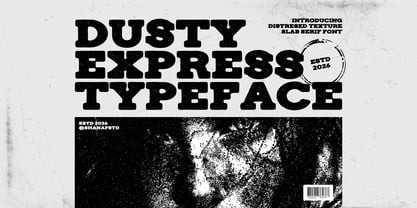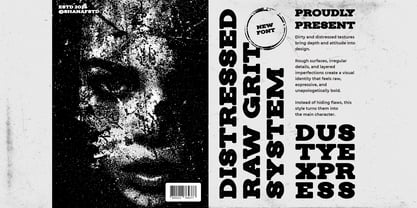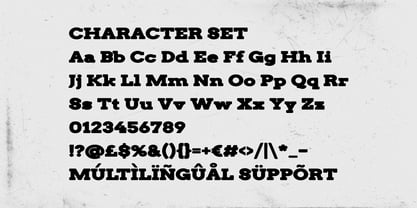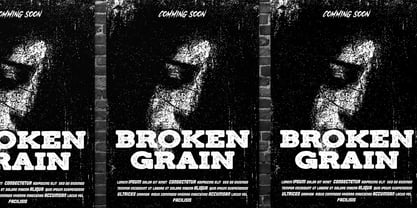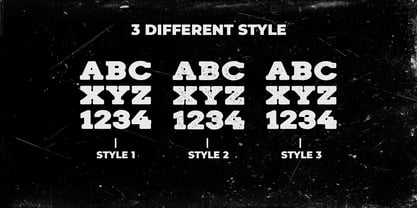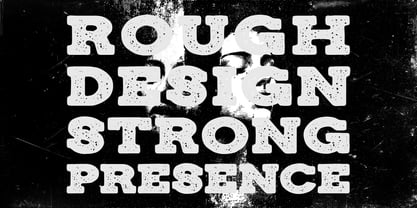
Dusty Express One
by Shanaf
The Dusty Express One Font Family was designed by Yesie Erma Yunita and published by Shanaf. Dusty Express One contains 3 styles and family package options. More about this family
Dusty Express Rough Texture Font delivers a strong slab character with a rugged personality and authentic worn details. The letterforms feature a wide structure, heavy weight, sturdy proportions, and pronounced slab terminals that create a confident visual presence. The textured surface introduces a naturally aged appearance without sacrificing readability. Each character feels solid, dependable, and expressive, making headlines and logos instantly recognizable. The combination of rough texture and classic slab construction creates a balance between vintage charm and contemporary branding needs. This font works exceptionally well for logos, branding systems, packaging, advertising, posters, headlines, book covers, magazine titles, product labels, stickers, greeting cards, crafting projects, invitation cards, promotional campaigns, and business identities. Dusty Express Rough Texture Font captures the spirit of handcrafted printing, industrial production, and heritage-inspired design. Its bold silhouette helps brands stand out across digital and print applications while maintaining a distinctive and memorable appearance. The font supports projects that require character, authenticity, and a strong visual voice without appearing overly decorative or complex.
Dusty Express Rough Texture Font fits a wide range of industries and creative themes. It performs well for coffee businesses, beverage brands, food products, burger shops, pizza brands, bakery businesses, snack packaging, restaurant promotions, and street food campaigns. The same rugged personality also suits outdoor businesses, workshop branding, garage services, craft products, hardware stores, barbershops, music events, festival promotions, vintage markets, and creative agencies. Beyond food and beverage applications, the font supports publishing projects, movie titles, editorial layouts, community events, local businesses, travel campaigns, and entertainment promotions. Its distressed details strengthen themes related to heritage, craftsmanship, adventure, rustic culture, and urban creativity. The heavy slab construction ensures excellent visibility on packaging, advertisements, banners, signage, and merchandise graphics. Whether creating a memorable logo, building a product identity, designing a magazine cover, or producing promotional materials, this font provides a bold foundation for communication. The included textured character treatment adds personality while keeping every word clear, impactful, and suitable for brands seeking a rugged and established appearance.